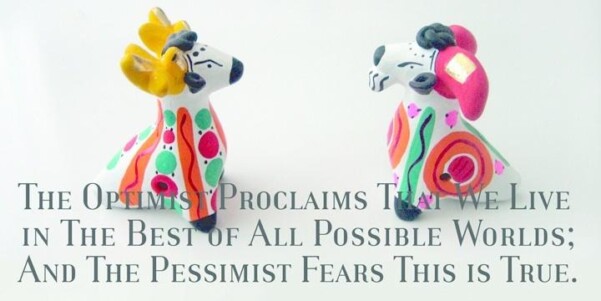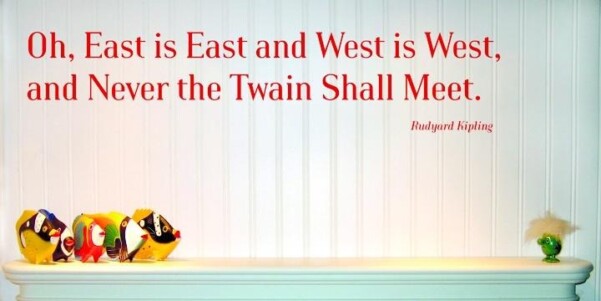
Haggard Font Family
Designer: Ramiz Guseynov
Haggard Font Family, is a wedge serifs typeface family of six styles. It stands out from the crowd with unique features like compact proportions of glyphs, sharp wedge serifs, small caps, and true italics. Haggard is a display font and can be used for editorial and print design.